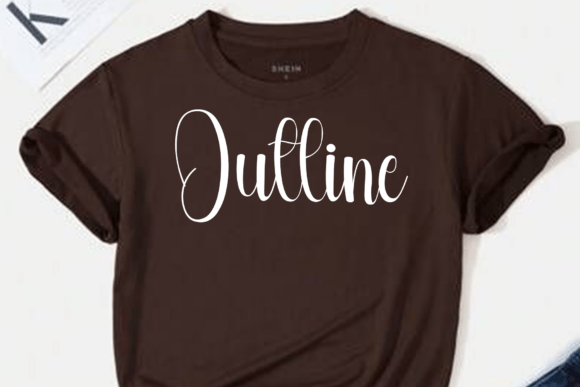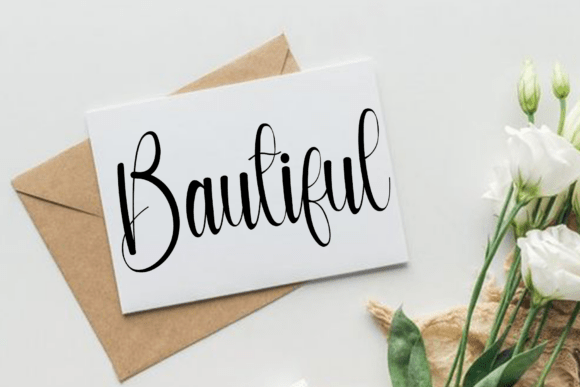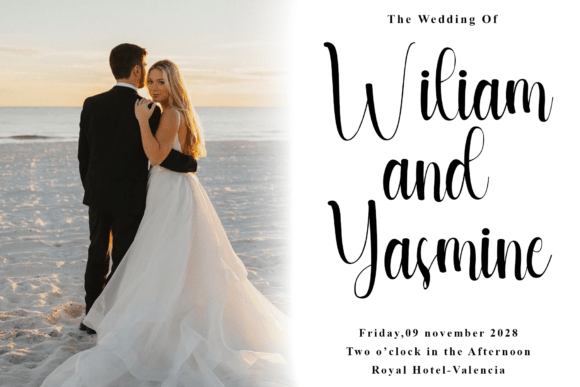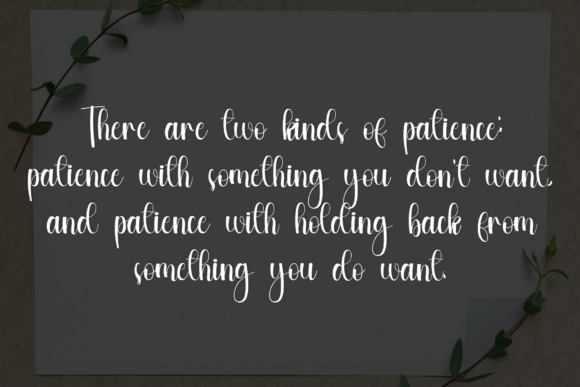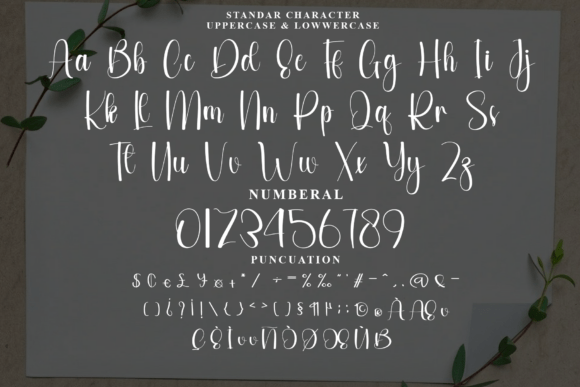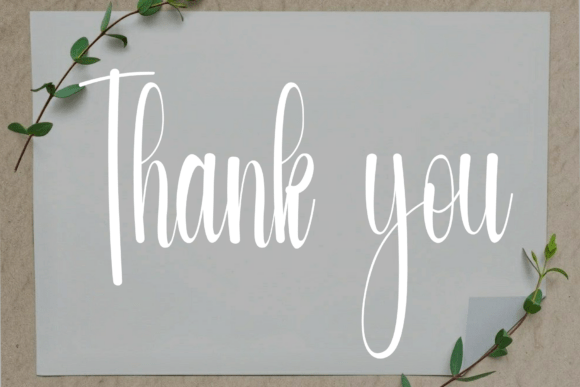
Discover the Elegance of Boarding Font: A Unique and Professional Handwritten Collection
In the realm of typography, few fonts manage to convey a sense of clarity and crisp elegance as effectively as Boarding Font. This modern handwritten collection is designed to evoke the freshness of a mountain breeze, making it an ideal choice for designers and crafters seeking a refined aesthetic for their projects. With its tall, thin strokes and subtle, airy slant, Boarding Font offers a unique and professional entry into the world of handwritten typography.
The Characteristics of Boarding Font
Boarding Font is distinguished by its clean and approachable style, which sets it apart from more traditional handwritten fonts. Its tall, thin strokes give it a sense of elegance and sophistication, while its subtle, airy slant adds a touch of whimsy and approachability. This combination of characteristics makes Boarding Font an incredibly versatile font, suitable for a wide range of applications.
Ideal Applications for Boarding Font
Given its refined aesthetic and clean style, Boarding Font is particularly well-suited for projects that require a sense of sophistication and elegance. Some of the ideal applications for Boarding Font include:
- Travel Photography: Boarding Font’s fresh and airy feel makes it an excellent choice for travel photography, where it can be used to add a touch of elegance to captions, titles, and other text elements.
- Branding for Outdoor Gear: The font’s clean and approachable style makes it an excellent fit for outdoor gear brands, which often seek to convey a sense of adventure and sophistication.
- Sophisticated Web Design: Boarding Font’s refined aesthetic and elegant feel make it an excellent choice for web designers seeking to create a sophisticated and professional online presence.
Why Designers and Crafters Love Boarding Font
Designers and crafters love Boarding Font for a variety of reasons, including its:
- Versatility: Boarding Font’s clean and approachable style makes it suitable for a wide range of projects, from travel photography to web design.
- Elegance: The font’s tall, thin strokes and subtle, airy slant give it a sense of elegance and sophistication that is hard to find in other handwritten fonts.
- Readability: Boarding Font’s clean style and simple letterforms make it easy to read, even at small sizes.
Tips for Using Boarding Font Effectively
To get the most out of Boarding Font, consider the following tips:
- Use it as a headline font: Boarding Font’s elegant feel and refined aesthetic make it an excellent choice for headlines and titles.
- Pair it with a sans-serif font: Boarding Font pairs well with sans-serif fonts, which can provide a nice contrast to its elegant, handwritten feel.
- Experiment with different sizes: Boarding Font’s clean style and simple letterforms make it easy to read at a variety of sizes, so don’t be afraid to experiment with different sizes to find the one that works best for your project.
Boarding Font is a unique and professional handwritten collection that offers a refined aesthetic and elegant feel. Its clean and approachable style makes it suitable for a wide range of projects, from travel photography to web design. With its versatility, elegance, and readability, Boarding Font is an excellent choice for designers and crafters seeking to add a touch of sophistication to their work.